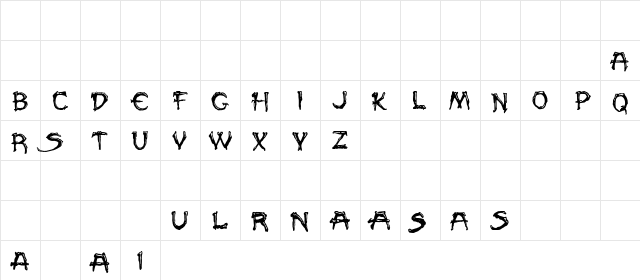
Paleos Demo Regular Font Preview
Paleos Demo Regular
Design Context for Paleos Demo Typeface
Paleos Demo is a composed and adaptable typeface that performs quietly and consistently across a wide range of design contexts.